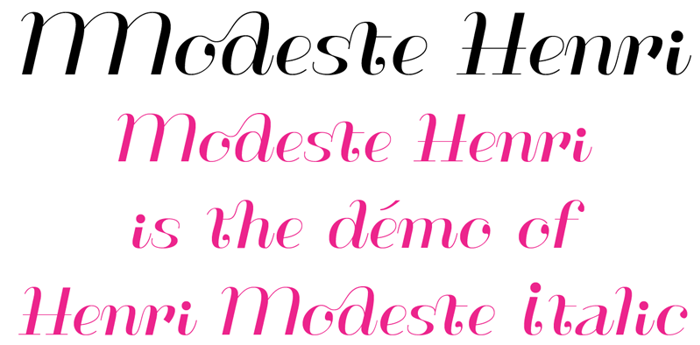
ModesteHenri Font
Henri Modeste is a mix of capital and lowercase forms. It has an high contrast and many ligatures to give your documents an eccentric look.